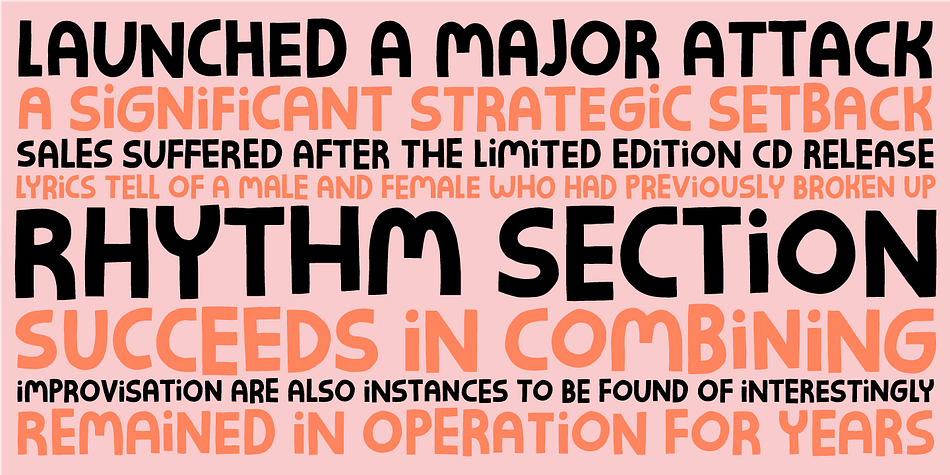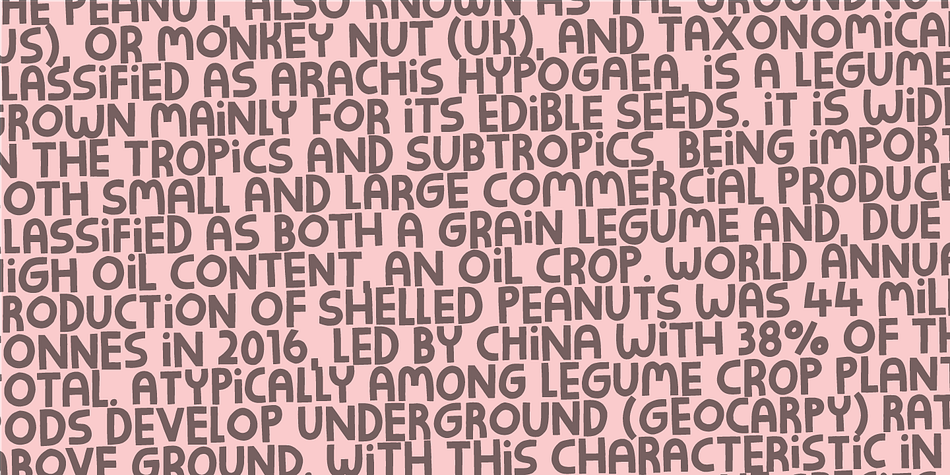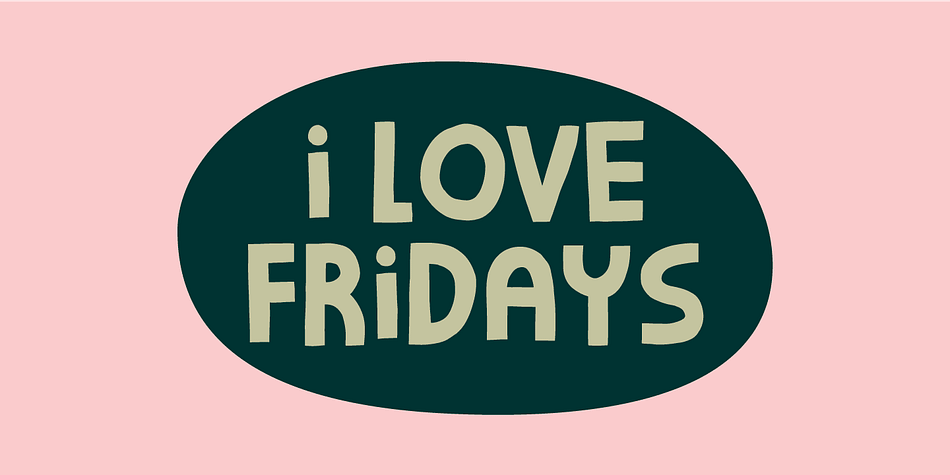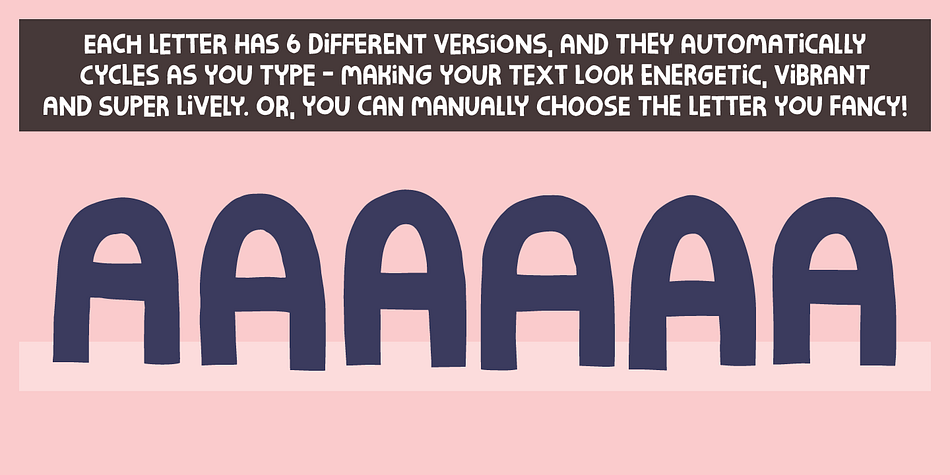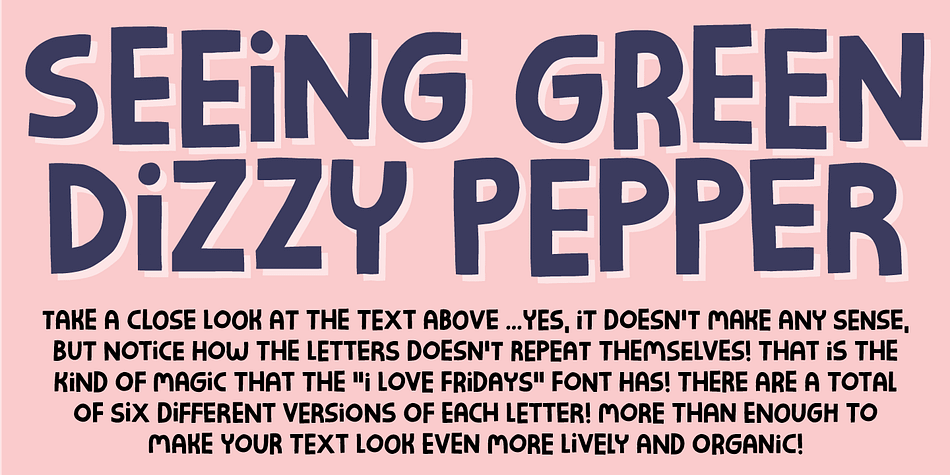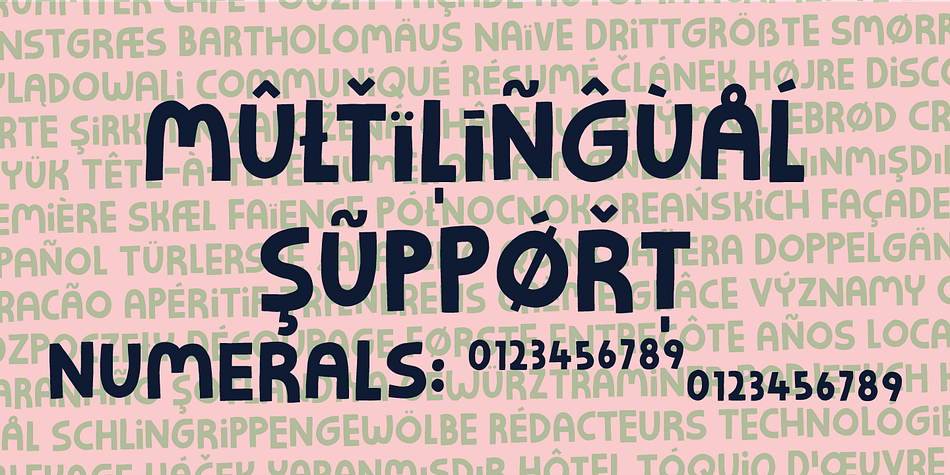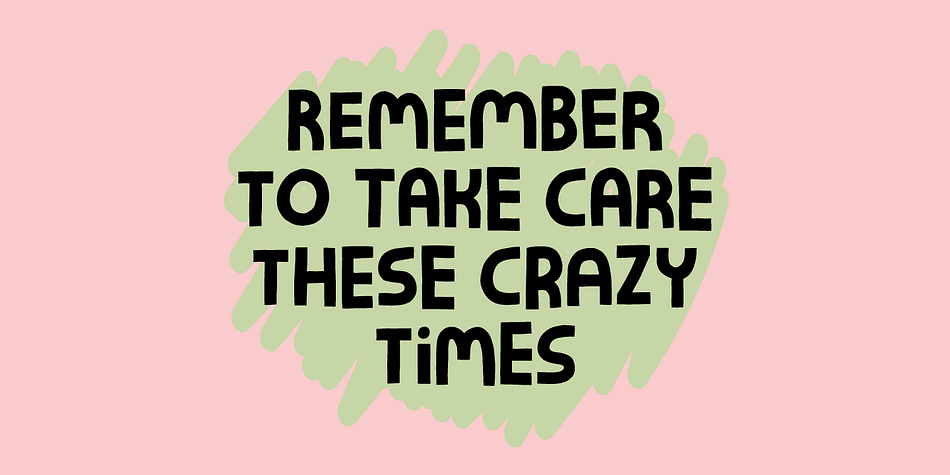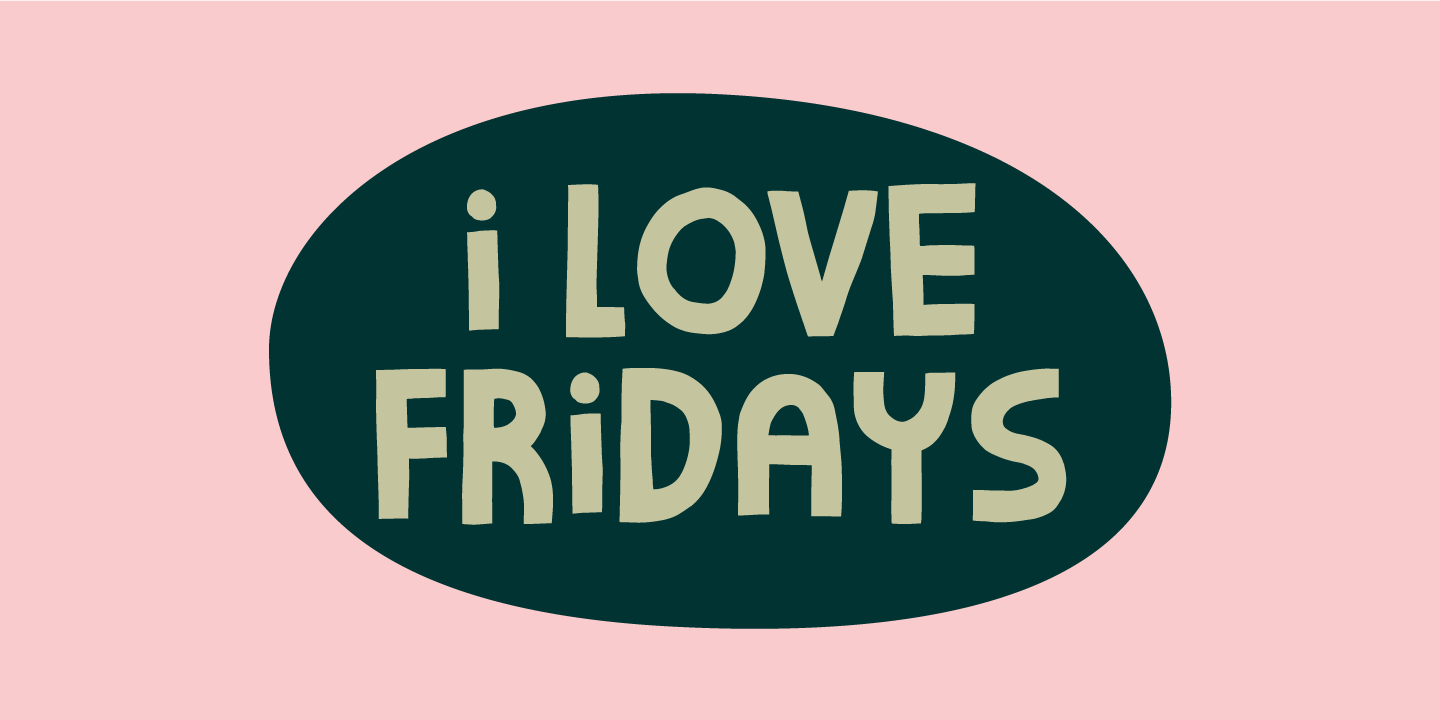
I love fridays
Designed by Jakob Fischer, I love fridays is a hand display and hand drawn font family. This typeface has two styles and was published by Bogstav.
Who doesn’t love Fridays? For many people it is the end of the working week and the start of the weekend. What’s not to like? I tried to put all that great vibe into this font - it is charming and clumsy and ready for a party…just like my Fridays…ehh…my Fridays are actually quite simple - no parties or staying out till early morning…been there, did that…now I love my Fridays, just the way they are! :)